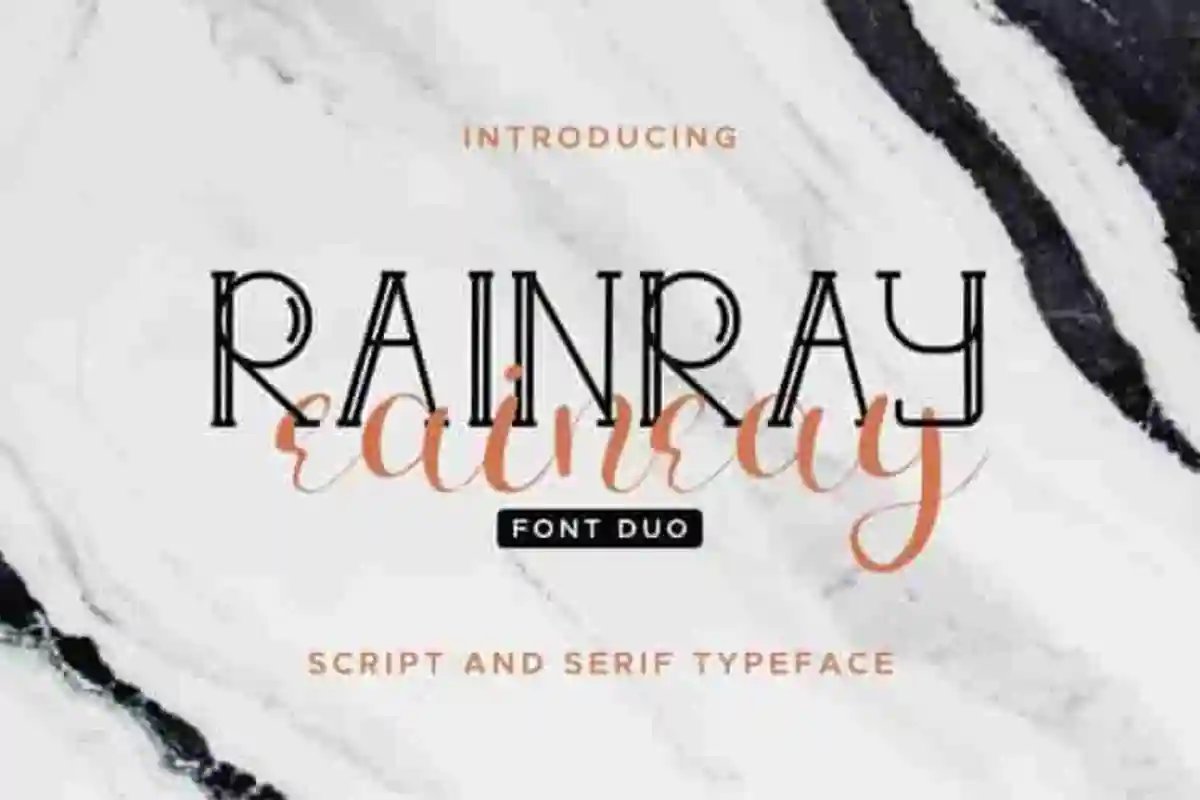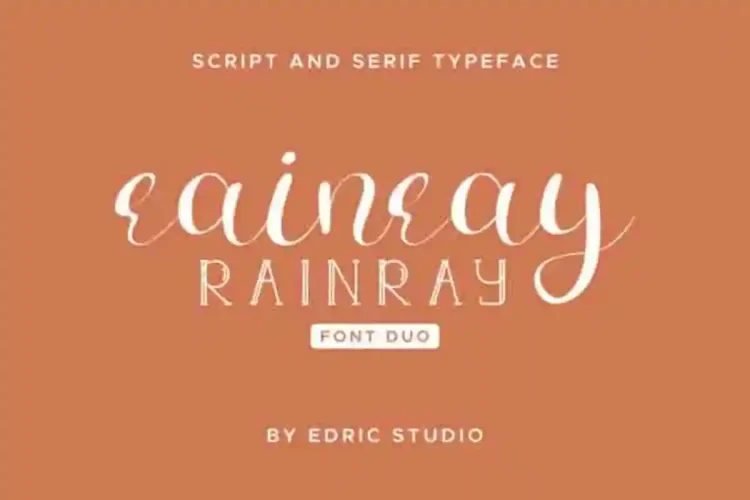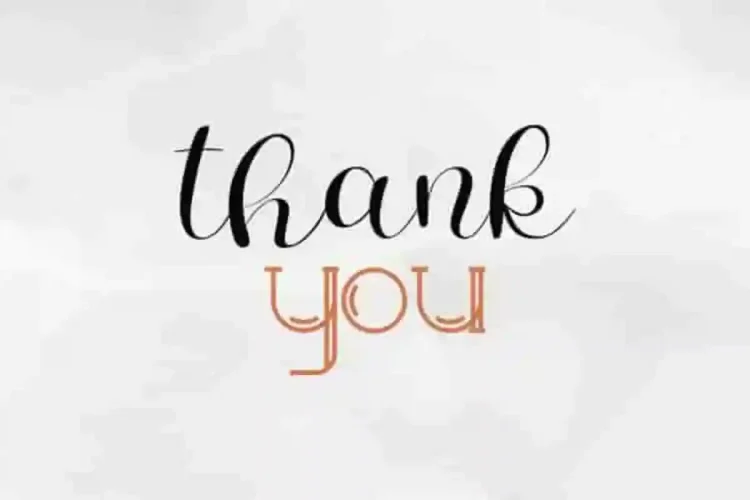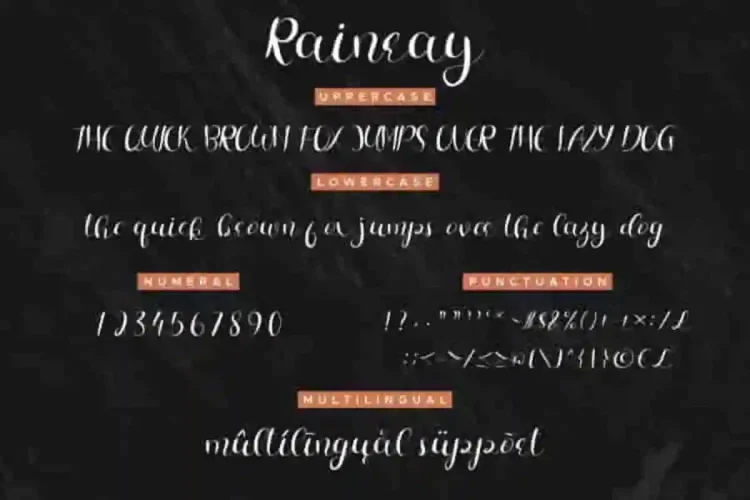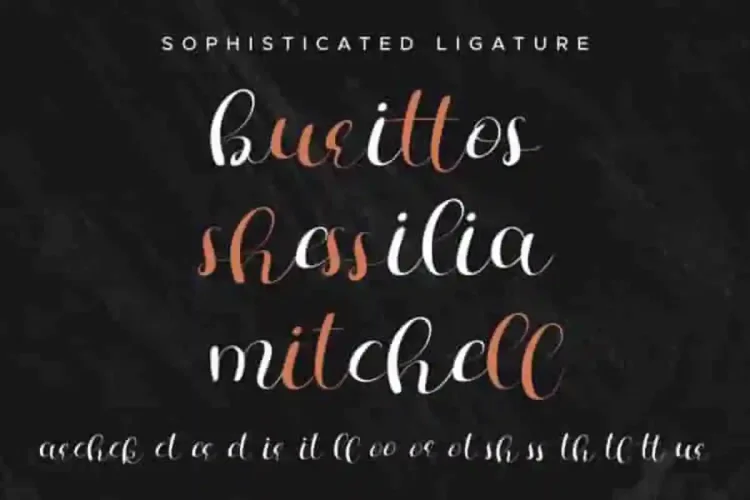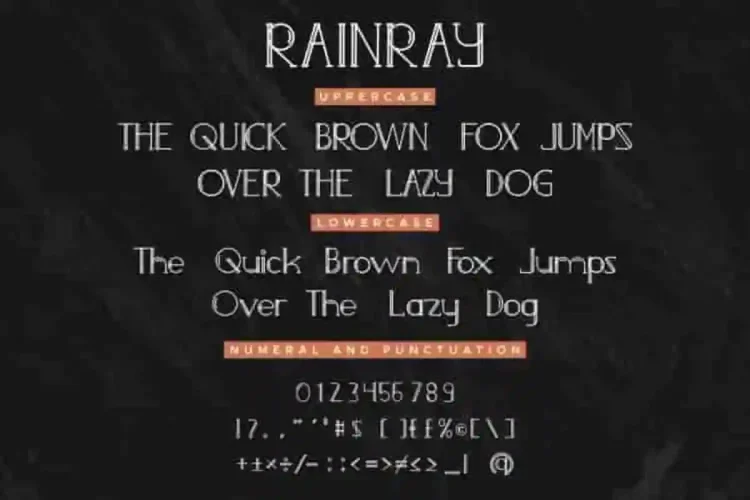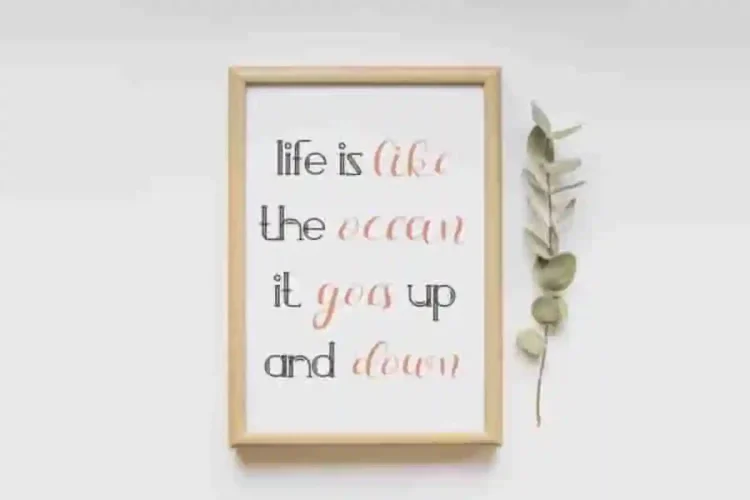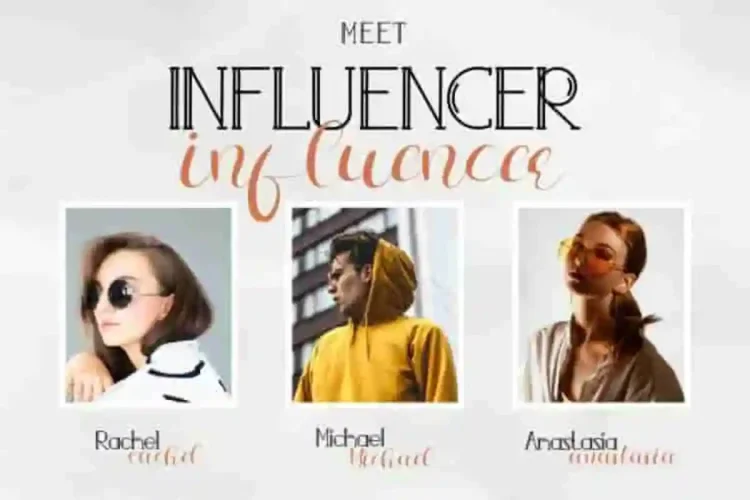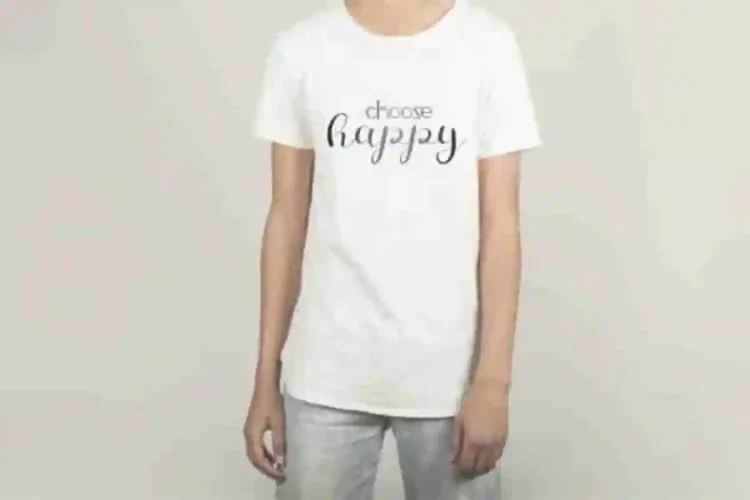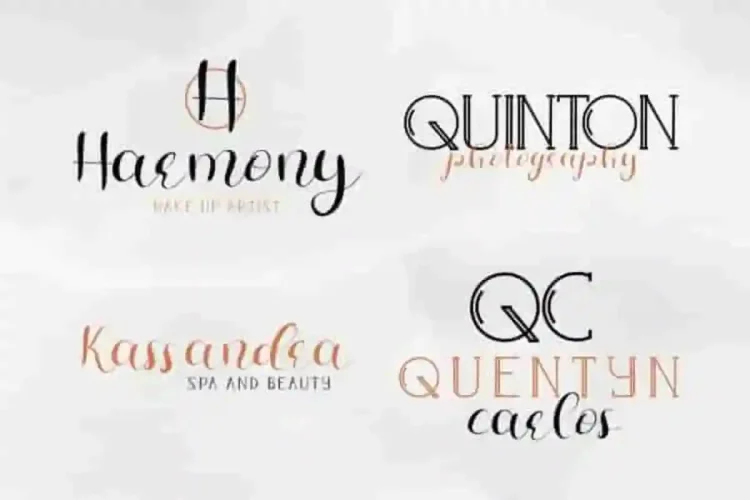
Rainray Handwritting Font Duo
Rainray Demo Serif
Rainray Demo
Please welcome! Rainray Handwritting Font Duo
This is the newest font from Three of our lovely artists : Deyan, Widiyanti and Sarah. This is a duo typeface,  handcrafted from our Studio. Situated here in Garut and Bandung, Indonesia. Made with love and passion. :)
Rainray Handwritting Font Duo is an exclusive duo typeface with unique and script style. The typeface has a stunning characters set, perfectly kerned and spaced. The style character of this font is elegant, stylish, sophisticated, and classic style.
Rainray Handwritting Font Duo will be great for any projects including : branding, logo, stationery, business card, signage, flyer, brochure etc. Almost all industries will be match for this typeface: wedding, events, real estate, architect, law firm, florist, gardening, makeup artist, travel, hotel, musician etc.